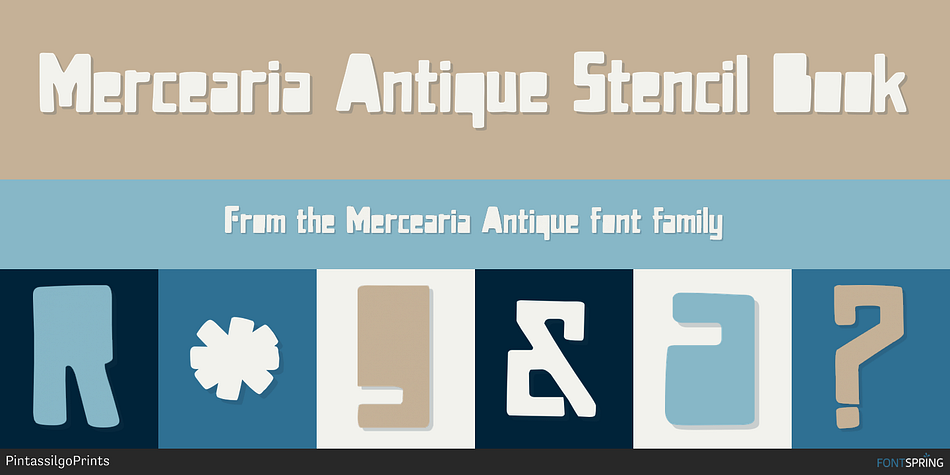
Mercearia Antique Stencil Book
Mercearia Antique is a comic, display and kids font family. This typeface has two styles and was published by PintassilgoPrints.
Mercearia is a bold typestyle font, based on a 1944 Brazilian book about alphabets and letterings styles.
Combining squarish letterforms and soft edges with a handcrafted feel, Mercearia is best suited for display sizes and works like a charm from 18pt and up.